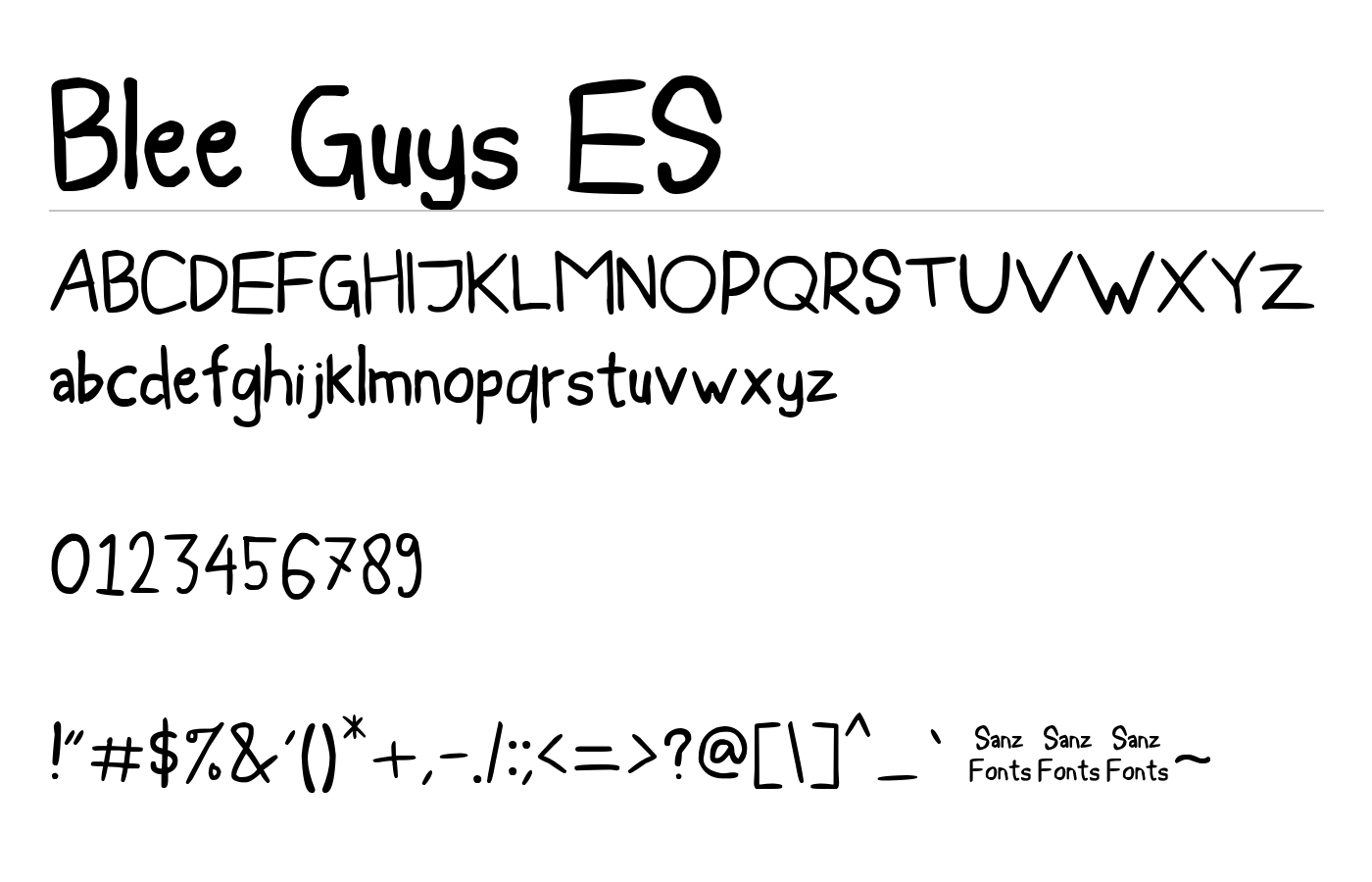
Blee Guys ES is a playful, casual sans serif font with a hand-drawn feel that brings a friendly and informal vibe. Its irregular strokes, moderate x-height, and quirky letterforms make it ideal for fun, approachable designs like children’s books, casual branding, or creative projects seeking a personalized touch. This font works best in headlines and short texts where its unique character can shine without sacrificing readability.
Blee Guys ES Font
About Blee Guys ES Font
| Font family | Blee Guys ES Font |
| Designer | Ihsan Hasanudin |